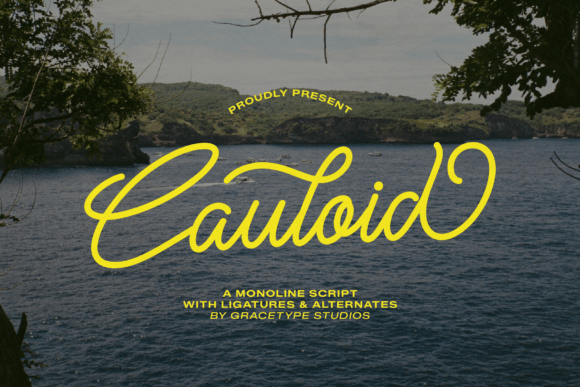
Cauloid Font: Effortless Script for Makers
The morning light was just hitting my workbench when I opened the file for Cauloid. I had been struggling with a batch of soy candle labels that felt too rigid, too corporate. My usual go-to scripts were either too loopy and hard to read or too stiff to convey the calm, coastal vibe I wanted for this new "Sea Salt & Sage" collection. Then I typed out the product name in Cauloid, and everything shifted. The letters flowed into one another with a natural, monoline consistency that felt like a breath of fresh air. It wasn’t just a font; it was the missing piece of my brand’s visual voice.
Designed by Gracetype Studios, this typeface is a masterclass in fluid motion. As a Script Amp style font, it captures the essence of a coastal breeze and effortless sophistication. For those of us who spend our days cutting vinyl, printing stickers, and designing digital downloads, finding a font that balances artistic flair with practical readability is rare. Cauloid manages to do both, making it an invaluable asset for any creative entrepreneur looking to elevate their brand identity.
Bringing Handmade Labels to Life
One of the first places I tested Cauloid was on my physical product packaging. When you are selling handmade goods, the label is often the first point of contact between your craft and the customer. I used Cauloid for the main title on my candle jars, pairing it with a clean, geometric sans serif font for the scent notes and weight details. The contrast was striking. The organic flow of the script softened the minimalism of the sans serif, creating a look that felt both modern and warm.
This premium font excels in packaging design because of its consistent stroke width. Unlike some brush scripts that vary wildly in thickness, Cauloid’s monoline structure ensures that it remains legible even when printed at smaller sizes. This is crucial for boutique tags, soap wrappers, and small sticker sheets where space is limited. I found that it held up beautifully on matte paper labels, giving my products a polished, professional finish that competitors using free, generic fonts simply couldn’t match.
Versatility Across Product Lines
Beyond physical labels, Cauloid has become a staple in my digital shop. I recently created a set of printable wedding invitations, and the font’s elegant curves added a touch of romance without feeling overly formal or stuffy. It worked perfectly for the couple’s names, serving as a stunning display font that drew the eye immediately. Because it is part of the Fonts category that prioritizes usability, I could easily adjust the spacing to fit different layout constraints without losing the integrity of the letterforms.
I also experimented with Cauloid for seasonal products. For a summer tote bag design, I used the font to create a simple, bold phrase. The result was chic and wearable, proving that this typeface isn’t limited to paper goods. Whether you are designing social media graphics for your shop’s Instagram, creating web design headers, or working on editorial design projects for a client, Cauloid adapts seamlessly. Its versatility makes it a smart investment for makers who wear many hats, from graphic designer to product photographer.
Readability and Technical Considerations
As much as we love beautiful typography, functionality is key for sellers. If you are using cutting machines like Cricut or Silhouette, you know that overly complex scripts can be a nightmare to weed. Cauloid’s connected letters are designed with clarity in mind. While it is best suited for short phrases, names, titles, and decorative wording, it maintains enough separation between characters to ensure clean cuts. I always recommend doing a test cut on scrap vinyl before committing to your final material, but I found Cauloid to be remarkably forgiving and easy to work with.
For longer text blocks, such as the body of a letter or detailed product descriptions, it is best to pair Cauloid with a simple serif font or a neutral sans serif. Using a script for large paragraphs can reduce readability, but using it for headlines and accents enhances emotional appeal. This balance helps guide the customer’s eye through your design assets, ensuring they notice the important details while enjoying the aesthetic experience.
Elevating Brand Consistency
Consistency is what turns a casual buyer into a loyal customer. By using Cauloid across all my touchpoints—from my Etsy banner to my thank-you cards—I have created a cohesive look that customers recognize. This creative font helps establish a mood of relaxed elegance that permeates every aspect of my shop. When a customer receives a package with a sticker featuring Cauloid, it reinforces the quality and care they experienced when browsing my listings.
Whether you are crafting holiday tags, designing planner pages, or creating modern typography for a client’s brand, Cauloid offers the flexibility and charm needed to succeed. It is more than just a set of letters; it is a tool for storytelling. By choosing a font that reflects the soul of your creations, you invite your audience to connect with your work on a deeper level. So, open up your design software, type out your next big idea, and let the fluid motion of Cauloid bring your vision to life.